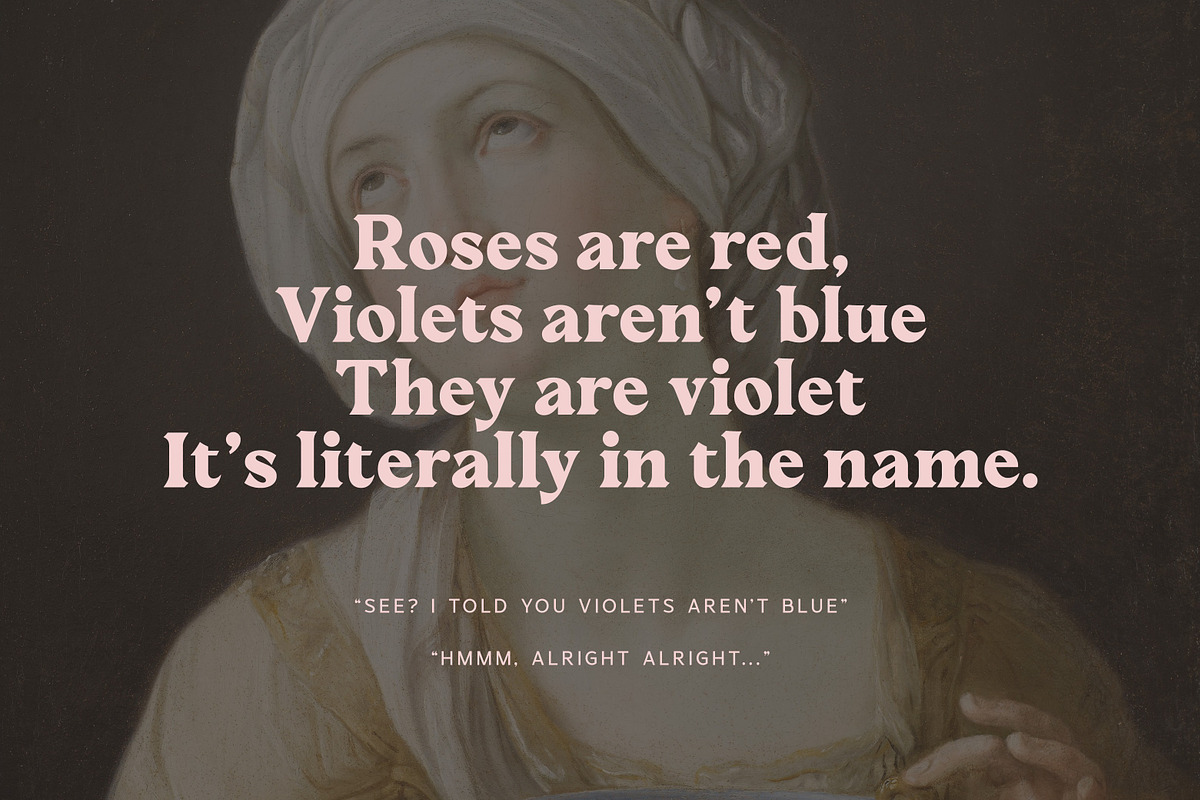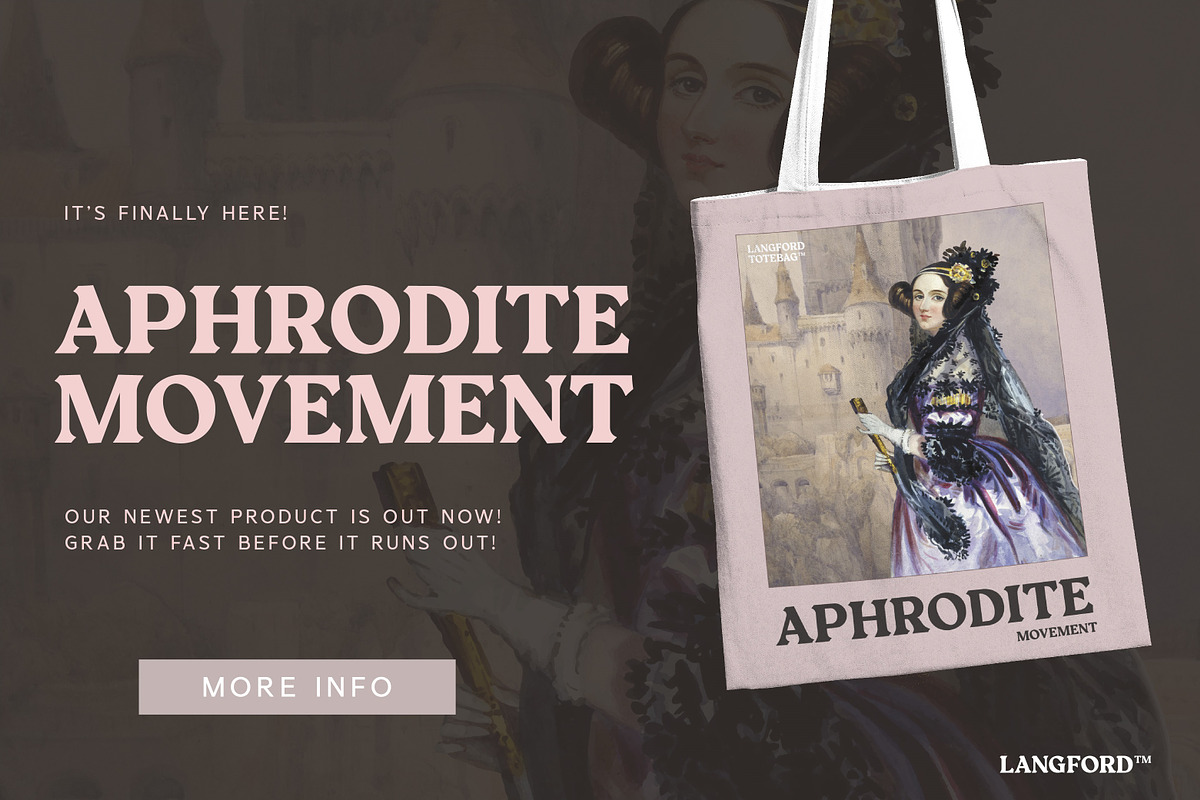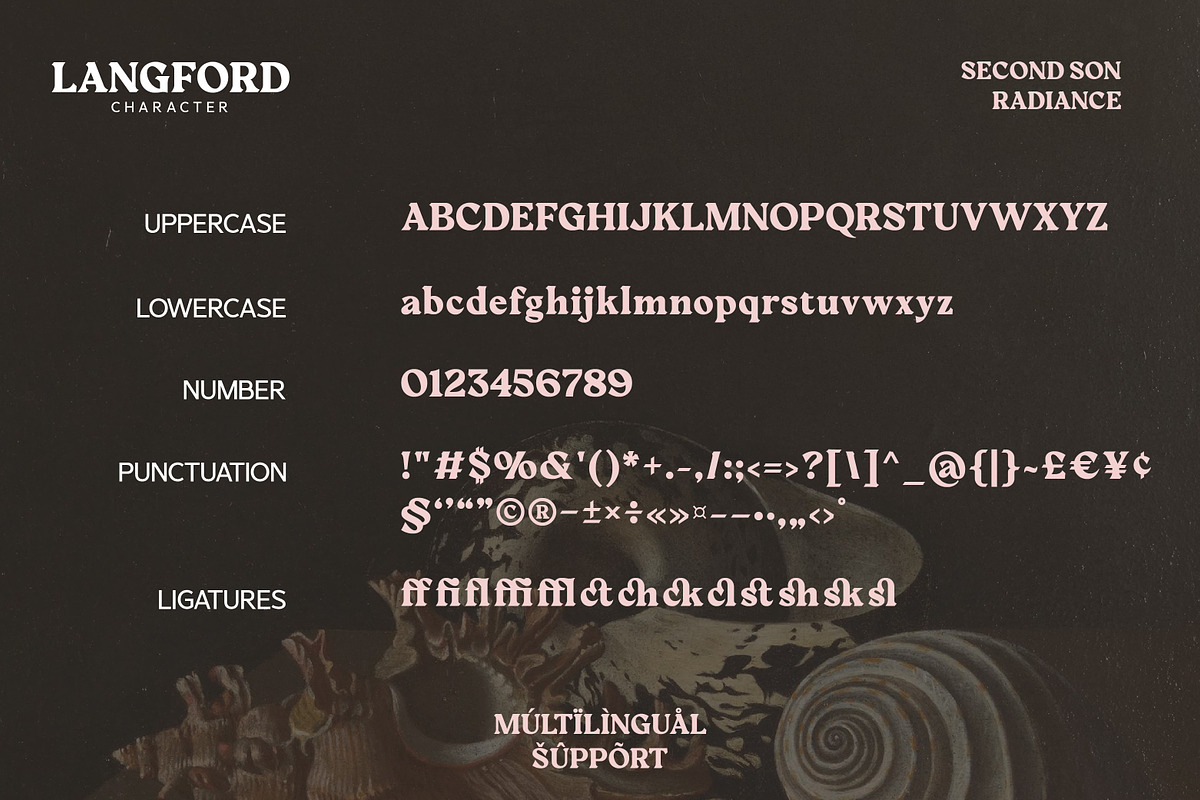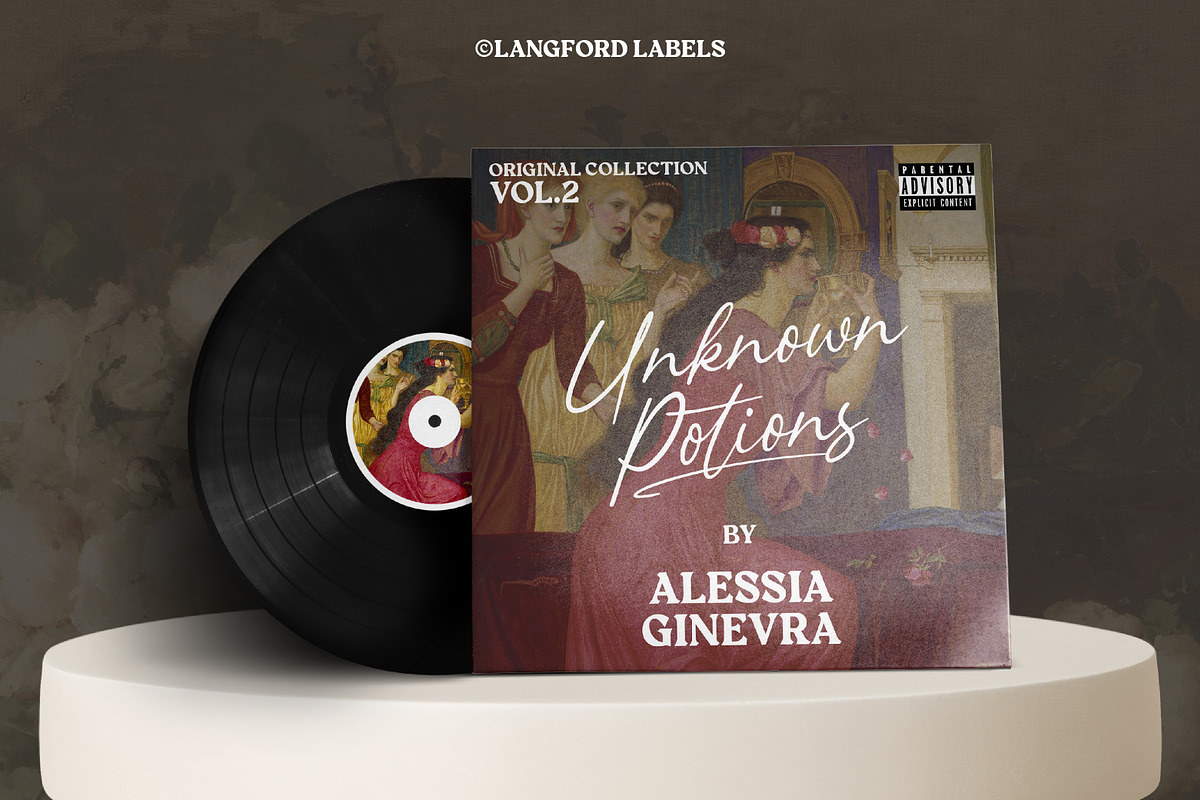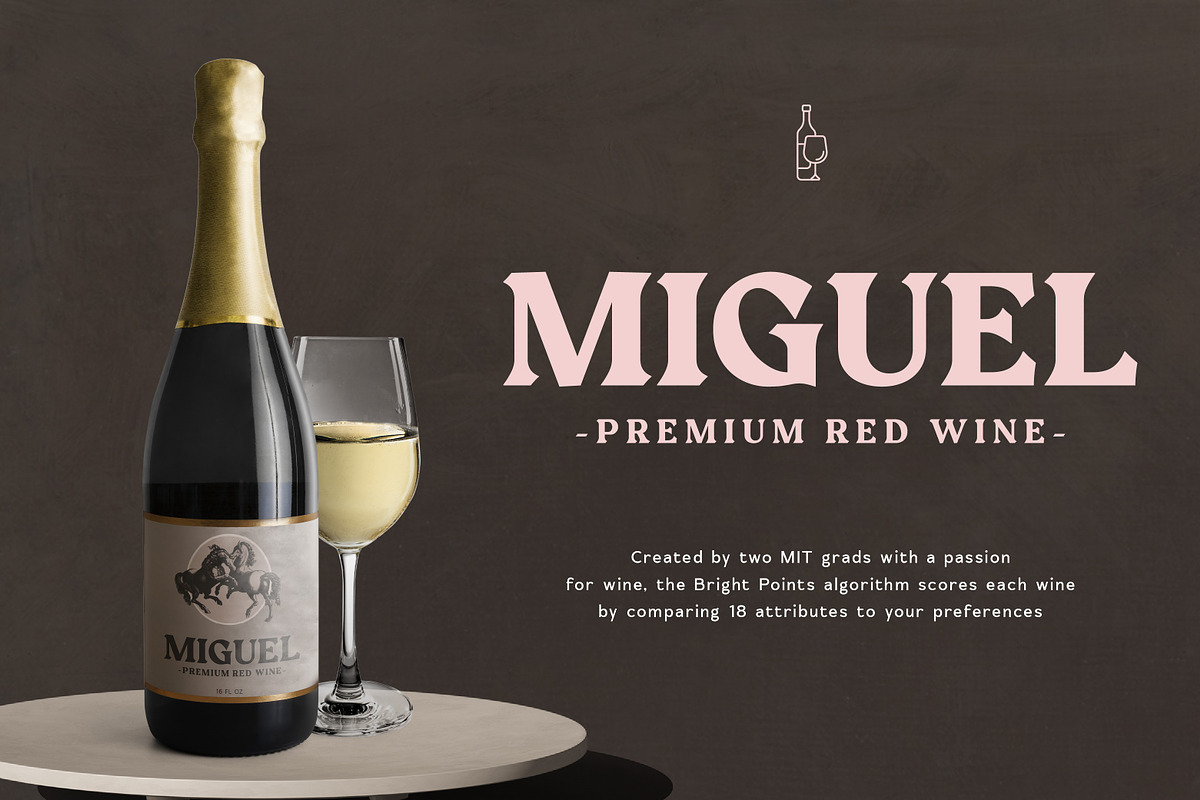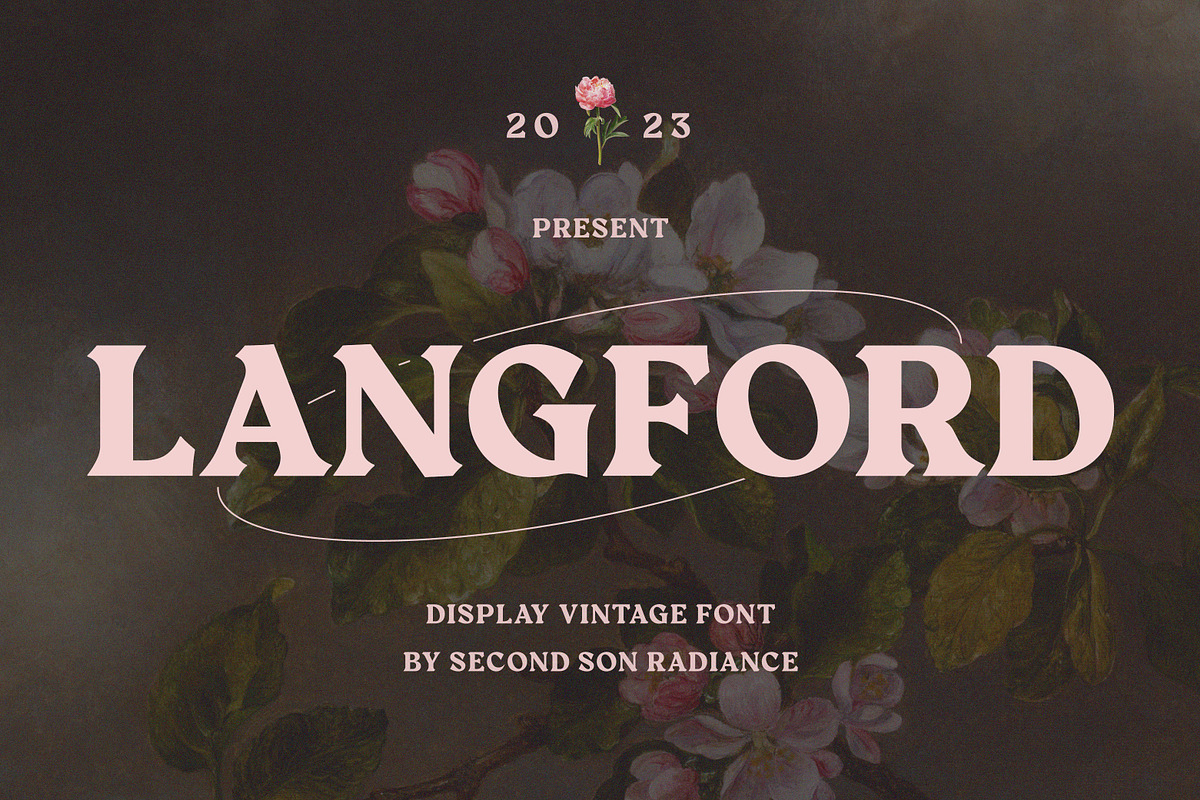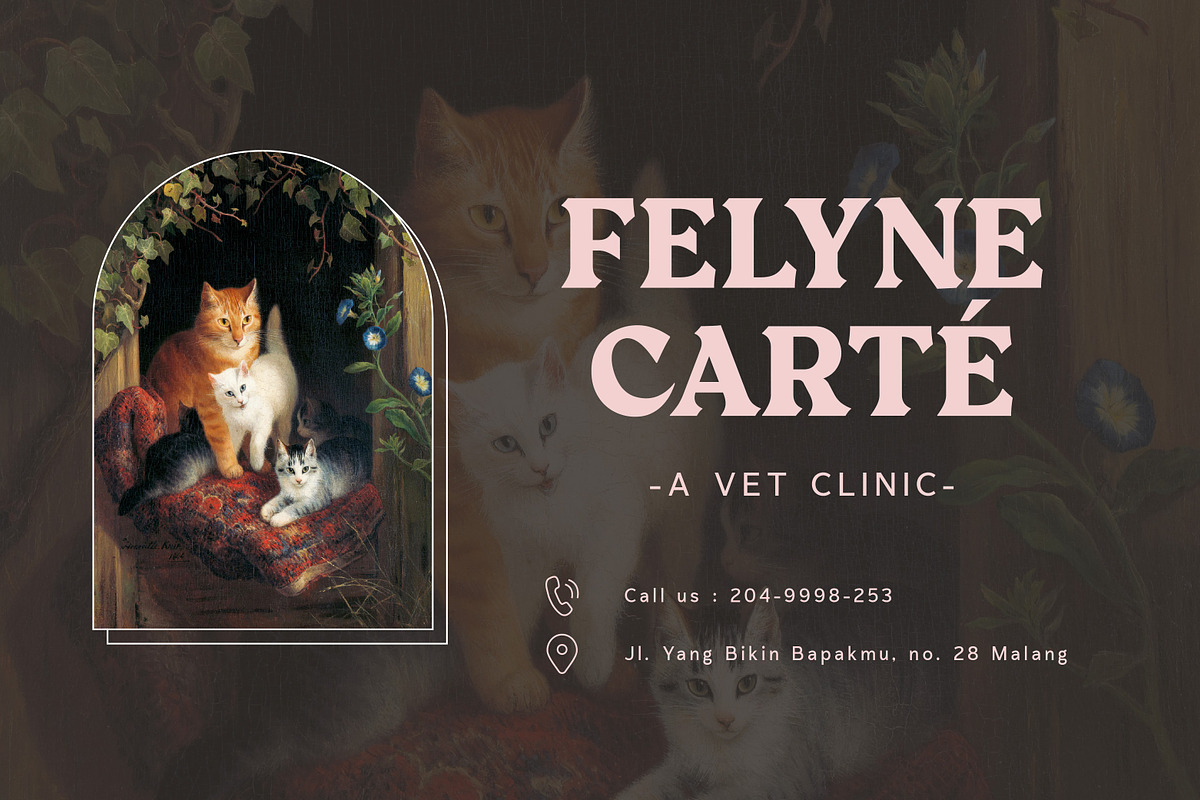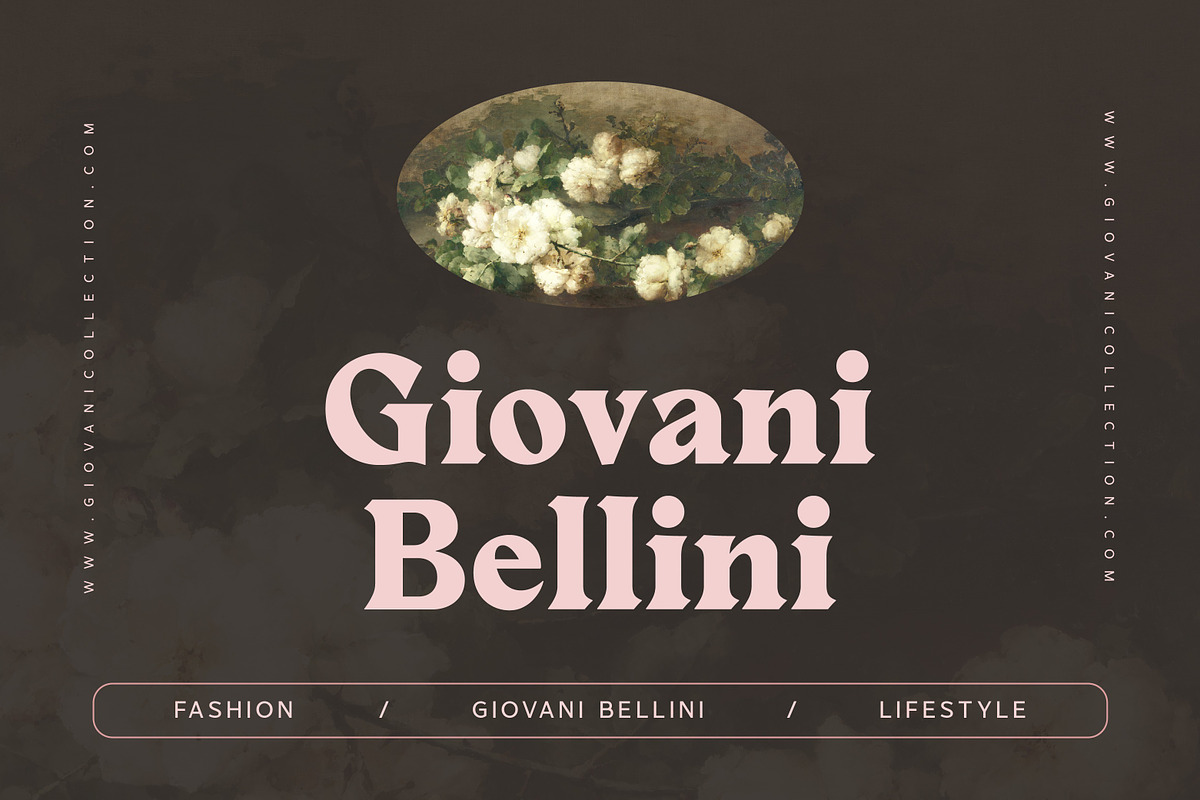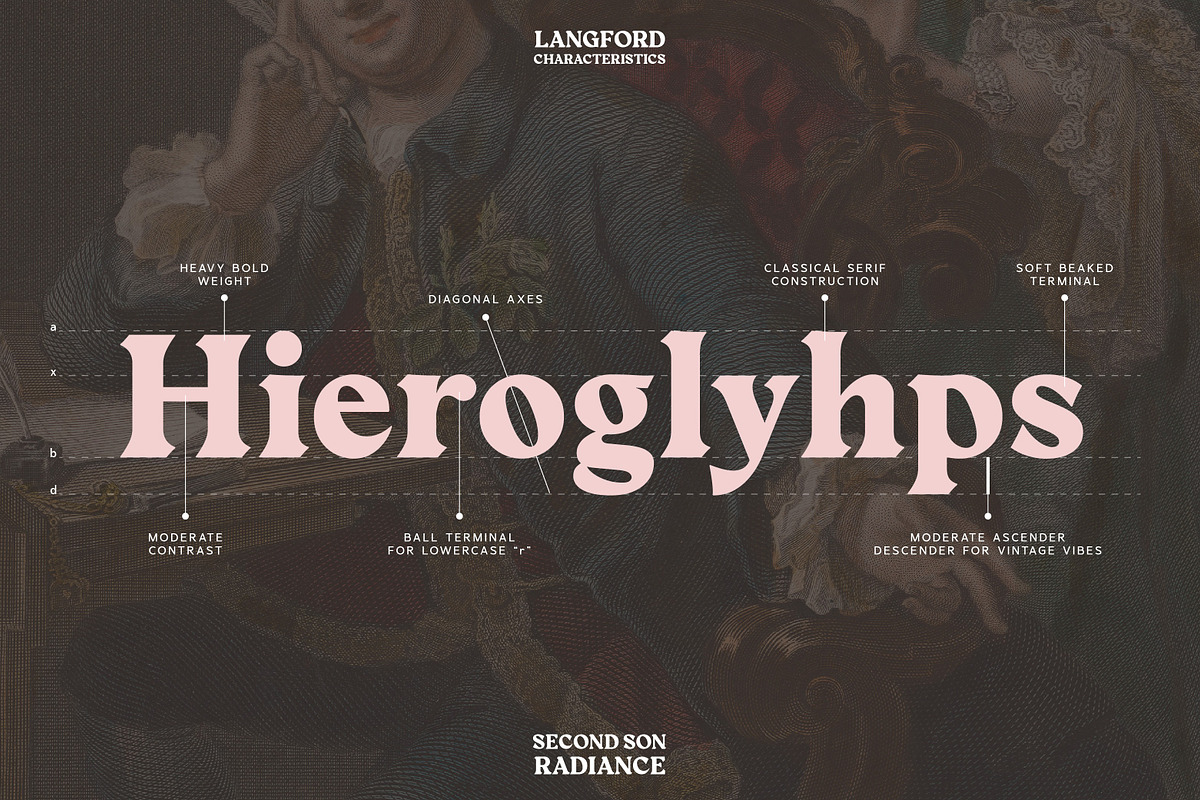
SS Langford - Display Vintage Font
Langford is a bold display font perfect for your upcoming projects. Masterfully designed to become a true favorite, with retro and vintage touch, it is perfect for your upcoming projects such as retro logo and branding, classy poster designs, 80’s magazines, FnB brands, art gallery branding, boutique branding, stationery design, blog design, modern advertising designs, card invitations, art quotes, home decor, book/cover titles, special events, and more.